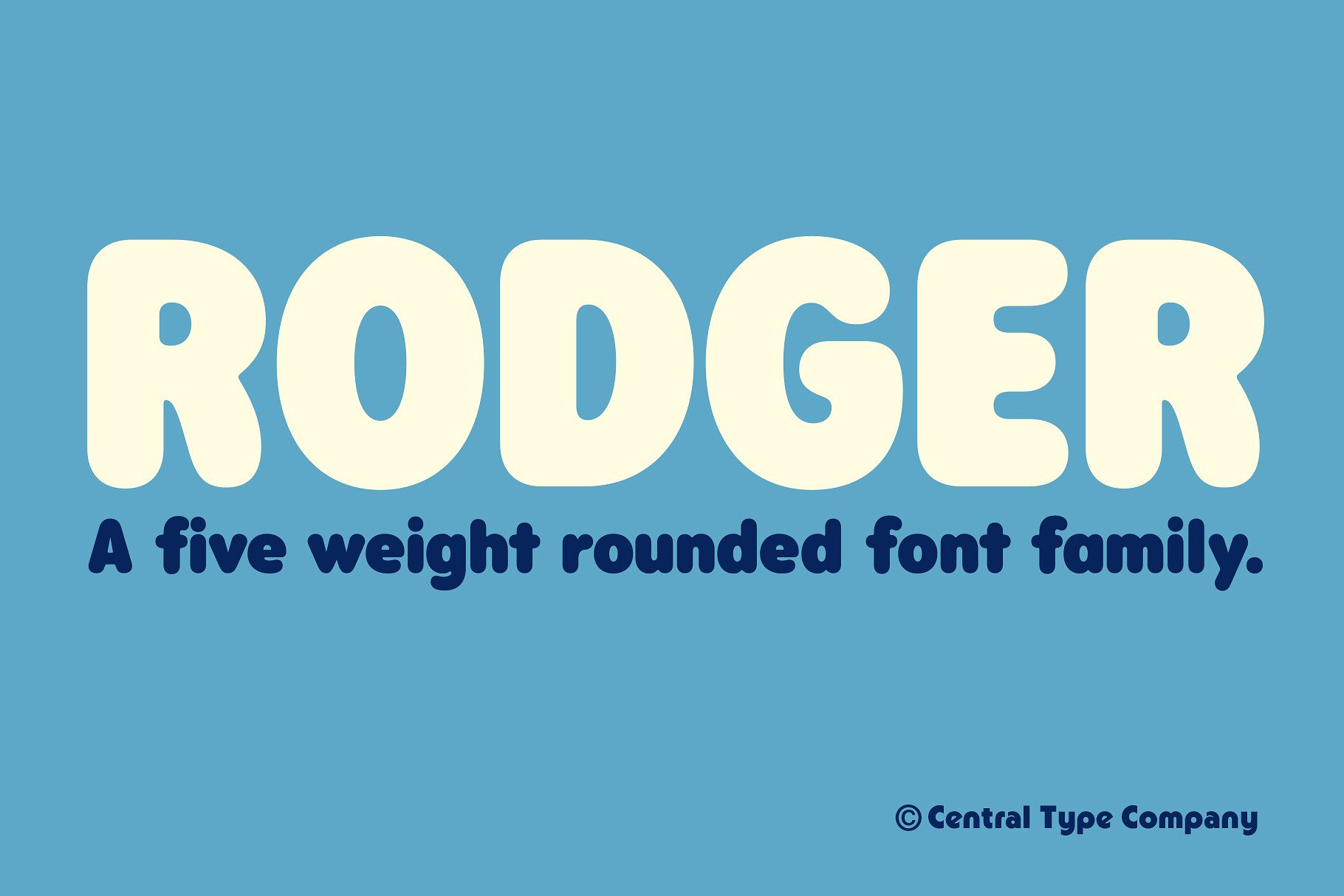
Rodger Font
Rodger Font is perfect for masculine branding, outdoor adventure companies, sports team logos, rugged product packaging, adventure gear branding, outdoor equipment labels, hunting and fishing brands, athletic wear design, and bold lifestyle marketing.
Rodger Font is exciting because it captures the essence of rugged masculinity and outdoor adventure with its strong, confident letterforms that communicate reliability, strength, and authentic character. Its bold design philosophy embodies the spirit of exploration and determination, making it perfect for brands that want to connect with adventurous audiences who value authenticity, durability, and outdoor lifestyle experiences.
The Rodger Font family includes Light, Regular, Medium, Bold, Extra Bold weights, matching Italic styles, Condensed versions, Stencil cuts, Outline variations, and Adventure alternates, providing designers with comprehensive tools for creating powerful masculine brands that resonate with outdoor enthusiasts and active lifestyle communities.
Whether you're developing outdoor gear brands, designing sports team identities, creating adventure marketing materials, or producing masculine lifestyle content, Rodger Font provides the strong foundation needed for authentic outdoor communication. Its rugged character makes it particularly effective for hunting outfitters, fishing gear companies, outdoor equipment manufacturers, and adventure tour operators targeting active male demographics.
Perfect for outdoor marketers, sports brand designers, adventure content creators, and masculine lifestyle brand developers, this font offers the authentic qualities essential for successful outdoor market positioning. The typeface's versatile nature ensures consistent strength across both digital adventure platforms and traditional outdoor advertising materials.
Rodger Font includes comprehensive outdoor-focused character sets, adventure-inspired design elements, and bold spacing that ensures impactful results in masculine branding applications. Its rugged approach to typography makes it invaluable for brands celebrating outdoor adventure and masculine lifestyle. Embrace outdoor authenticity with Rodger Font Free Download and create typography that's built for adventure.